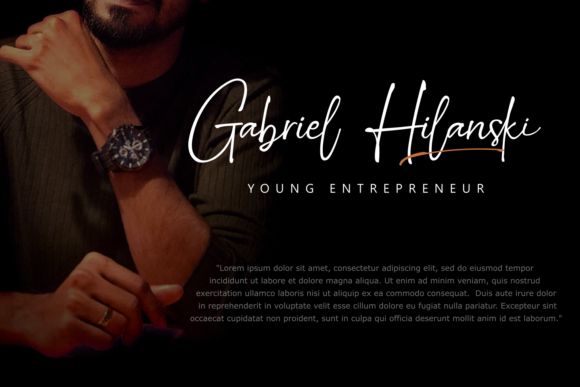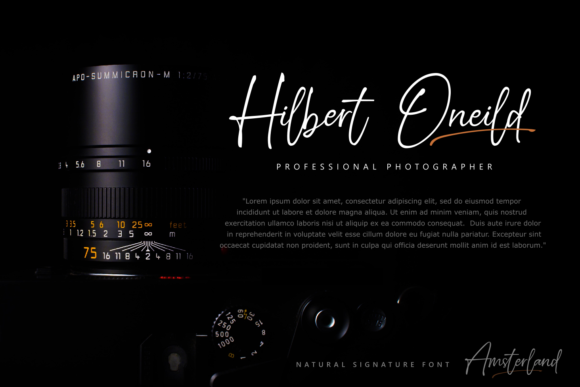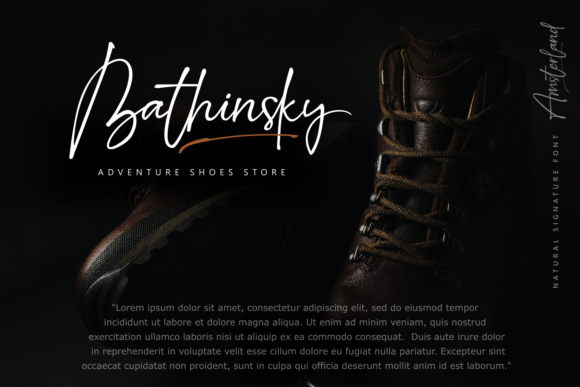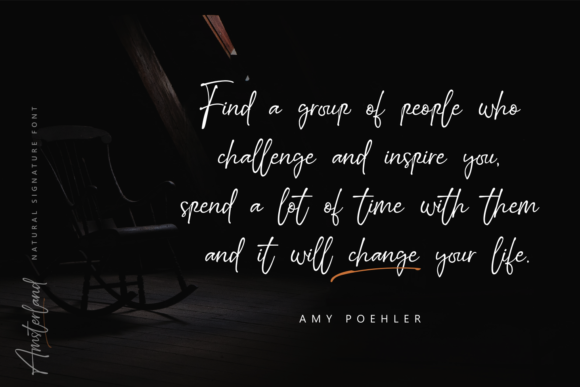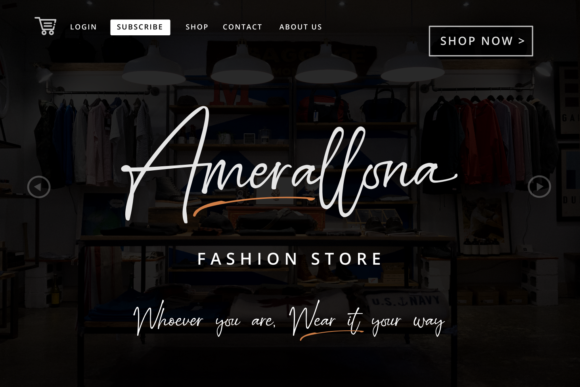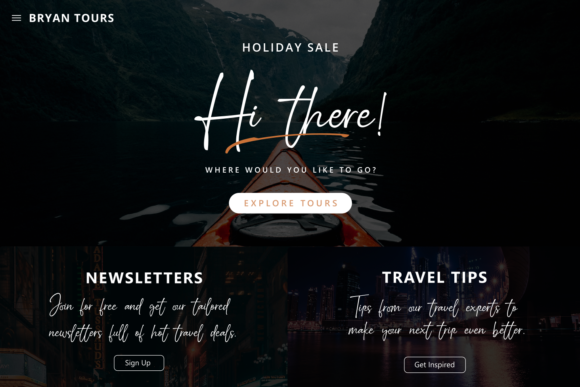
Unleash Your Creativity with Amsterland Font
There’s something magical about holding a pen and letting your thoughts flow onto the page. The scratch of the nib, the dance of the ink – it’s a moment of pure creative freedom. For designers, this feeling is what drives us to experiment, to innovate, and to push the boundaries of what’s possible. And that’s exactly where the Amsterland Font comes in – a delicate, elegant, and flowing handwritten font that’s about to become your new best friend.
With its beautiful, well-balanced characters, the Amsterland Font is the perfect addition to any design project. Whether you’re working on a branding campaign, a wedding invitation, or a children’s book, this font is sure to bring a touch of whimsy and sophistication to your work. And with its PUA encoding, accessing all of the glyphs and swashes is a breeze – giving you even more creative possibilities to explore.
Amsterland Font Key Features
- Font Family: Amsterland Font comes in 6 styles: Regular, Italic, Bold, Bold Italic, Condensed, and Condensed Bold.
- Character Set: Amsterland Font supports a wide range of languages, including Latin, Cyrillic, Greek, and many more, covering over 200 languages.
- Unique Characteristics: The Amsterland Font features a unique blend of modern and vintage elements, making it perfect for creating a distinctive and eye-catching visual identity.
Amsterland Font Review
I recently had the chance to work with the Amsterland font, and I must say it’s been an interesting experience. Here are my honest thoughts on this font.
- The Amsterland font has a unique, hand-drawn feel to it, which can be great for creating a personal touch in designs.
- The font is highly legible, even at smaller font sizes, making it suitable for body text.
- The font supports a wide range of languages, including Latin, Cyrillic, and Greek scripts.
- The Amsterland font can look a bit rough around the edges, which may not be ideal for corporate or professional designs.
- The font lacks a clear hierarchy, making it difficult to use for titles and headings.
- Some users may find the font’s ligatures and alternates distracting or unprofessional.
Overall, the Amsterland font is a solid choice for creatives looking for a unique, hand-drawn feel in their designs. However, it may not be the best fit for corporate or professional projects. With some careful styling and attention to hierarchy, Amsterland can be a great addition to your design toolkit.
The Amsterland font is perfect for:
- Creating unique and eye-catching titles and headings.
- Adding a touch of elegance and sophistication to designs.
- Creating professional-looking presentations and documents.